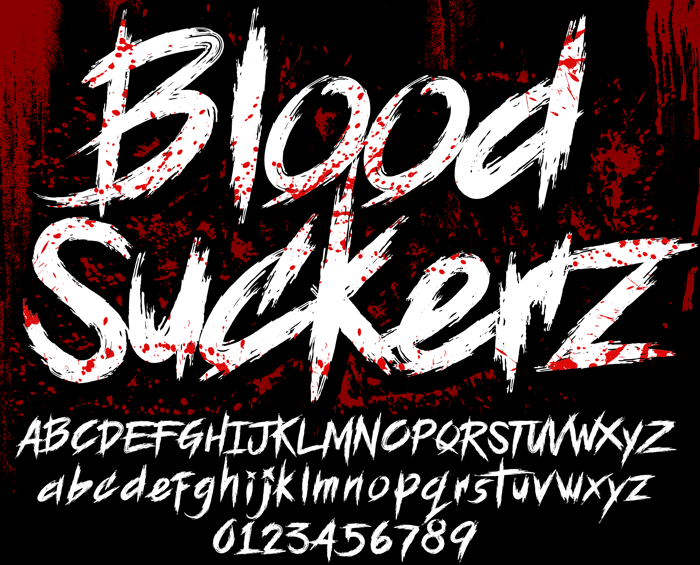
BLOODSEEKER Font
BLOODSEEKER
- Heavy textured inspired font perfect on your school projects, covers, etc.
- Lifestyle horror theme font for branding, website, mobile app etc.
CconceptLab